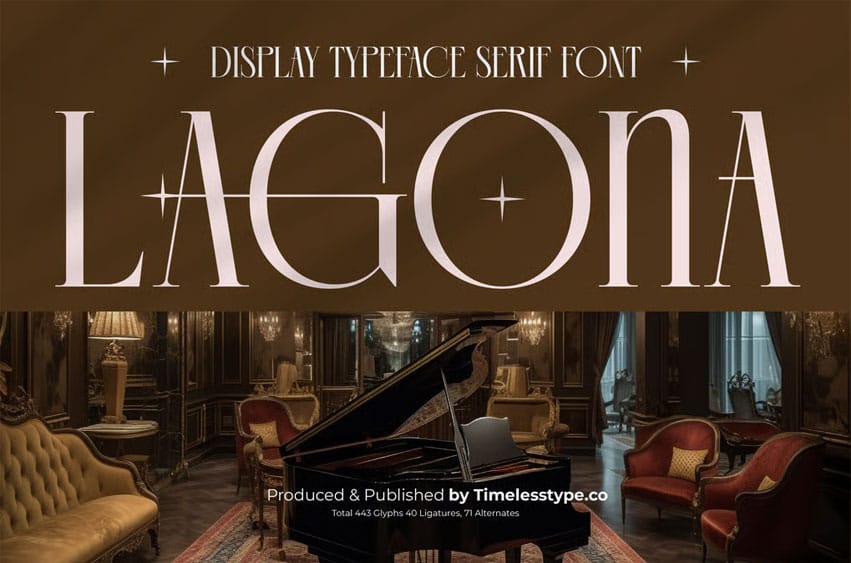
Lagona Font is a luxury display serif typeface that embodies elegance, precision, and artistic flair. With 443 glyphs, 40 ligatures, and 71 alternates, this font delivers sophistication and dramatic contrast, making it perfect for editorial design, branding, packaging, and elegant logo compositions.
Its tall letterforms and refined details capture the essence of luxury while maintaining a bold modern edge. Designed to elevate premium visual identities, Lagona adds a touch of grandeur and poise to any creative project that demands excellence and refinement.